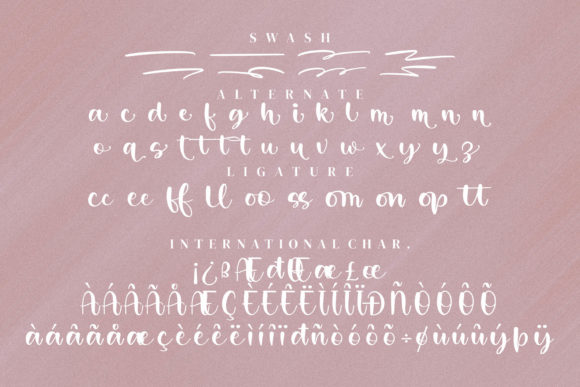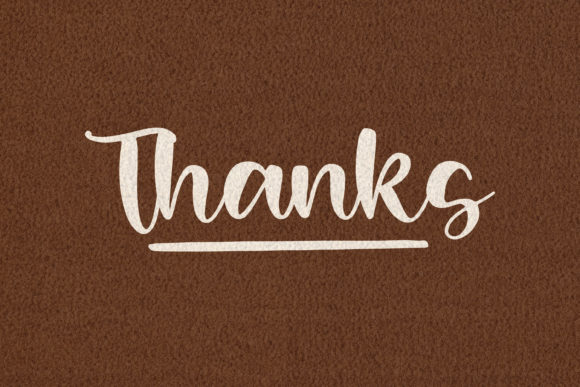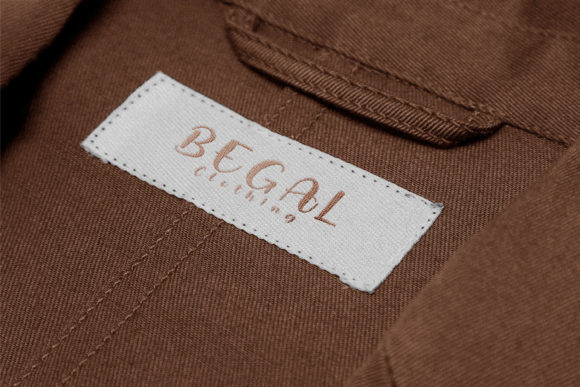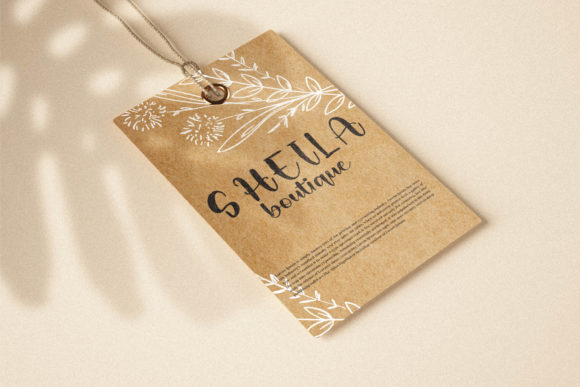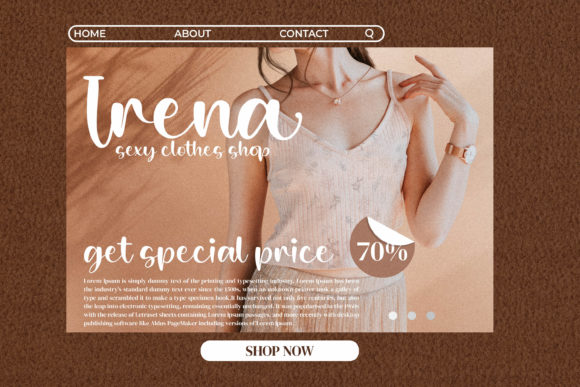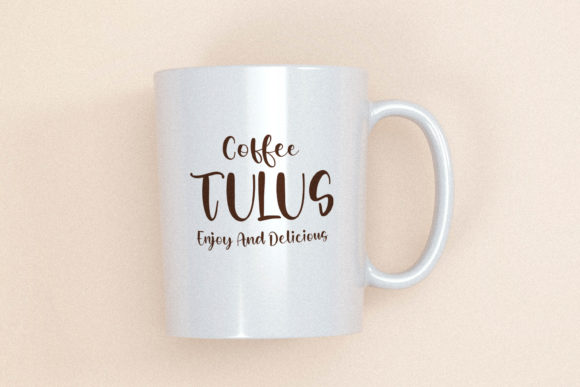
Hulahop Sweet Font
About Hulahop Sweet Font
Hulahop Sweet is a magical script font carefully created with a touch of elegance. This font is PUA encoded which means you can access all of the glyphs and swashes with ease!